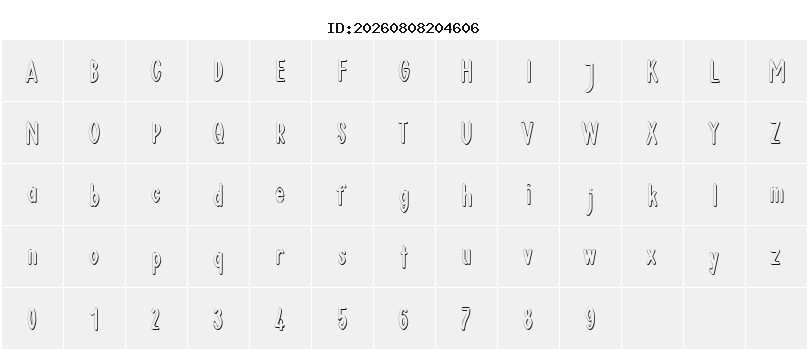
• Font Name: Plakat_1 Shadow DB
• Full Font Name: Plakat_1 Shadow DB
About Plakat_1 Shadow DB.ttf
Plakat_1 Shadow DB.ttf is a modern, elegant sans-serif font designed for ultimate readability and visual harmony. Perfect for branding, headlines, web design, and print materials.